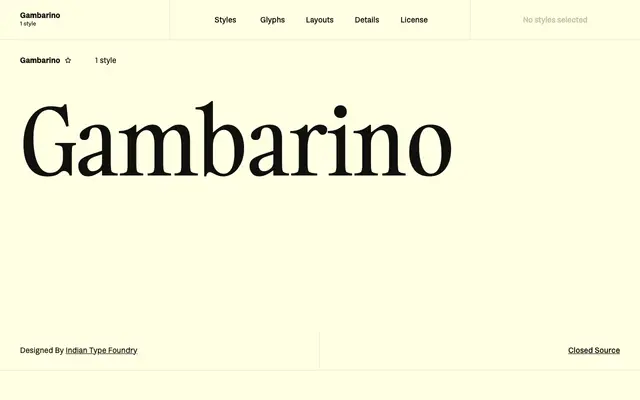
Gambarino
A condensed, single-weight Garalde-derived serif by Théo Guillard, built for headlines with fine serifs, teardrop terminals and distinctively top-heavy capitals.
Designed by Théo Guillard and released through Fontshare in 2021, Gambarino takes the Garalde genre as its starting point but pushes it in a post-modern direction suited to display settings. Its capital letters carry oversized bowls and counterforms in their upper halves, most visible in B, E, F, P and R, while the lowercase pairs a tall x-height with unusually short descenders. The exquisitely fine serifs and teardrop terminals on characters like a, f and y give it enough personality to headline alongside a conventional Garalde body face without competing with it.
The foundry explicitly describes Gambarino as a post-modern interpretation of the Garalde genre, with fine serifs, teardrop terminals and top-heavy capitals characteristic of that tradition, designed for display and headline use.